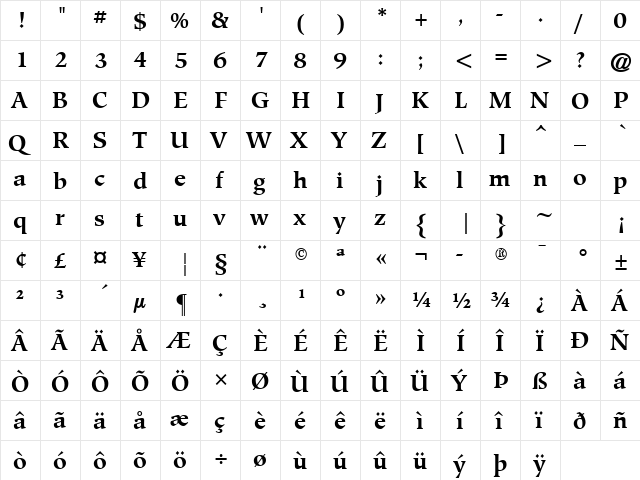
Hiroshige ATT Bold
Design Context for Hiroshige ATT Typeface
Hiroshige ATT is a composed and adaptable typeface that performs quietly and consistently across a wide range of design contexts. The heavy weight commands attention and anchors typographic hierarchies.